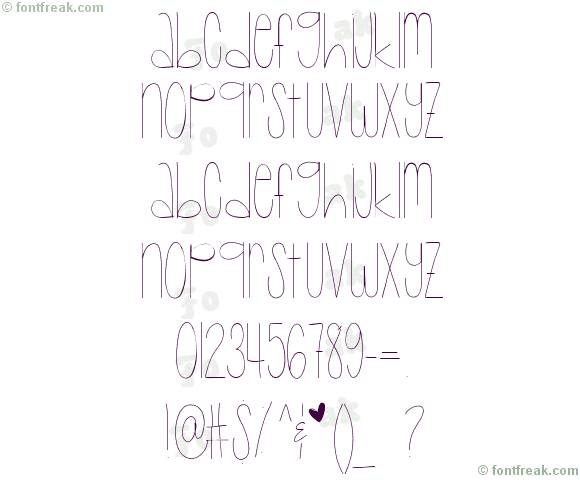
Baby Lexi Skinny
The Baby Lexi Skinny font by Vanessa Bays is a delightful display typeface that captures a playful yet elegant essence. This handwritten font showcases a unique character with its slender strokes and soft curves, striking a perfect balance between whimsy and sophistication. The light stroke weight and minimal contrast create an airy appearance, making the text feel inviting and approachable. The open letter spacing enhances readability, while the playful, organic forms add a touch of charm.
This font is versatile and well-suited for a variety of creative projects. Its whimsical nature makes it ideal for wedding invitations, where couples can express their individuality and style. Additionally, Baby Lexi Skinny can shine in children's book covers, where its friendly aesthetic appeals to young readers. It's also a great choice for branding efforts, particularly for businesses in the children's market, such as toy stores or daycare centers. Furthermore, this font can elevate restaurant menus, especially those with a casual or family-oriented vibe, making the dining experience feel warm and welcoming.